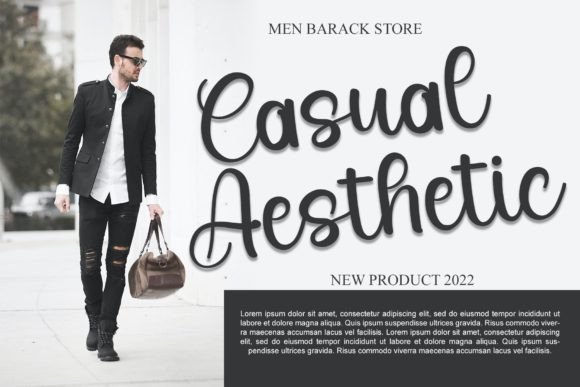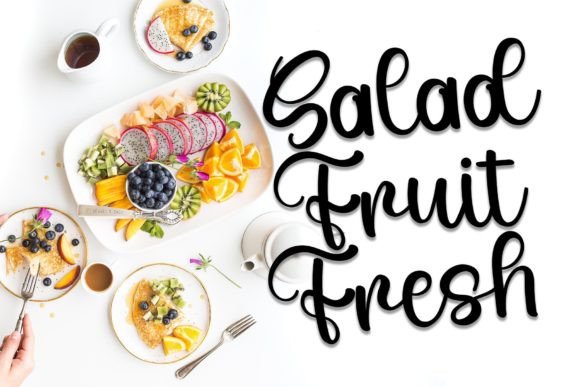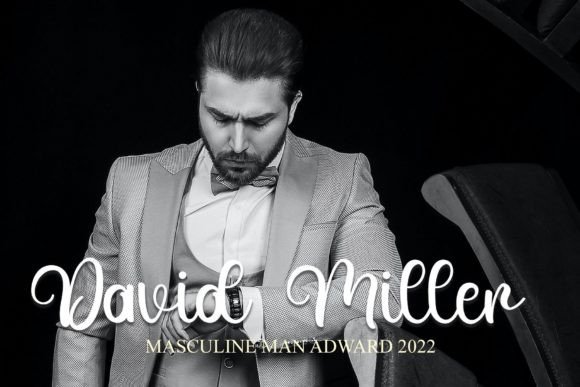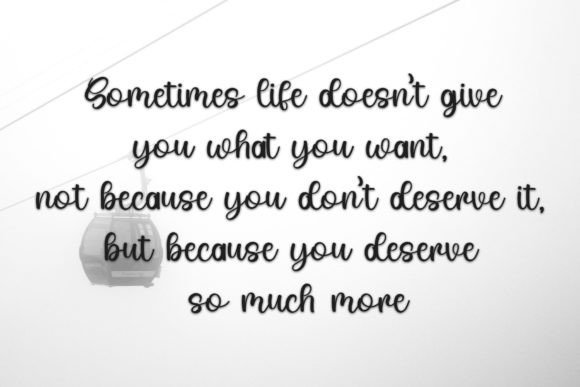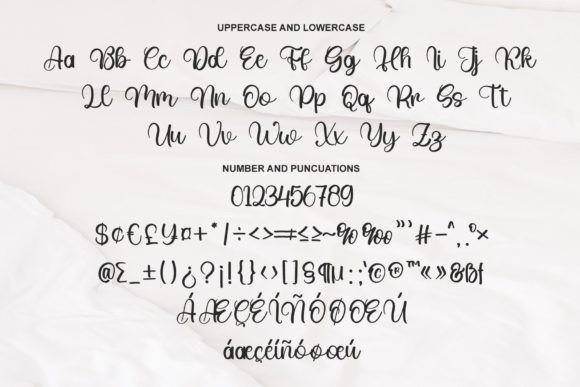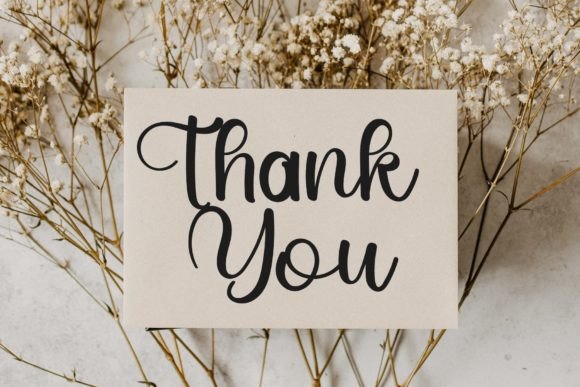
Anyone Font
About Anyone Font
“Anyone” is presented as a luxury handwritten font, characterized by an elegant touch. The description suggests that this font is well-suited for a variety of creative projects, inviting users to fall in love with its distinct and timeless style.
The term “luxury handwritten font” implies that “Anyone” carries a sense of opulence and sophistication while maintaining a handwritten, personal touch. Luxury fonts are often chosen for projects where a high-end and exclusive appearance is desired.
Describing the font as having an elegant touch reinforces the notion of sophistication. Elegant fonts are known for their refined and graceful appearance, making them suitable for a range of applications where a polished look is crucial.
The emphasis on the font’s “distinct and timeless style” suggests that it possesses unique and enduring qualities, making it versatile and potentially suitable for various design contexts.
The invitation to “fall in love with its incredibly distinct and timeless style” is a call to evoke a positive emotional response from designers. Establishing this emotional connection can be crucial in design projects where resonance with the audience is important.
In conclusion, “Anyone” is introduced as a luxury handwritten font with an elegant touch and a distinct and timeless style. Its potential for creating spectacular designs suggests that it can be a valuable asset for designers seeking a font that combines luxury, elegance, and versatility.